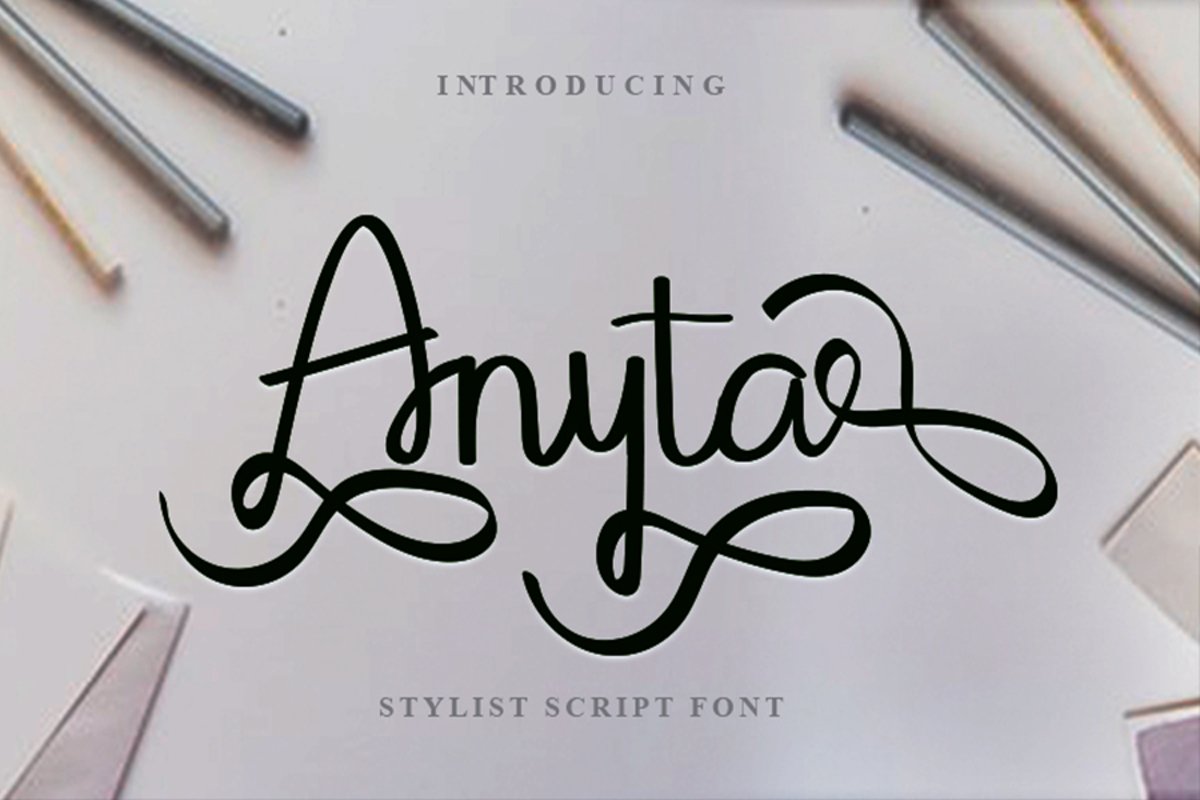
Anyta
Anyta is a beautiful, unique and attractive handwritten font. Fall in love with its authentic feel and use it to create gorgeous wedding invitations, beautiful stationary art, eye-catching social media posts, and cute greeting cards.
+More than 100+ Glyphs
+More than 43 Languages
+PUA-Encoded for many alternates and ligatures